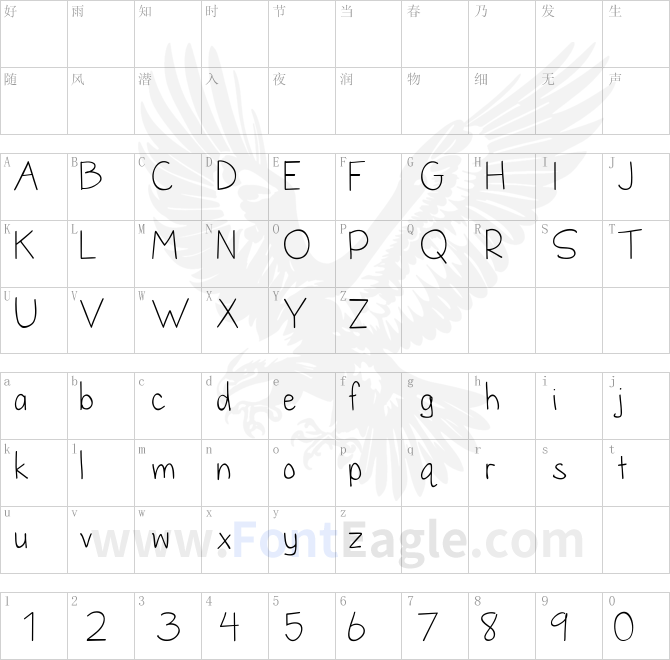
- Font name:dandelion in the spring
- Font Subfamily ID:BrittneyMurphy: dandelion in the spring: 2011
- Font Full Name:dandelion in the spring
- Postscript:dandelioninthespring